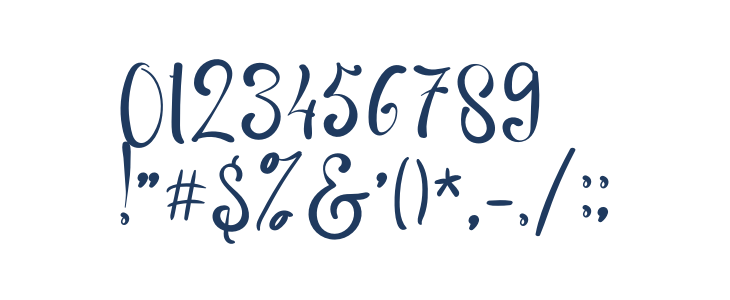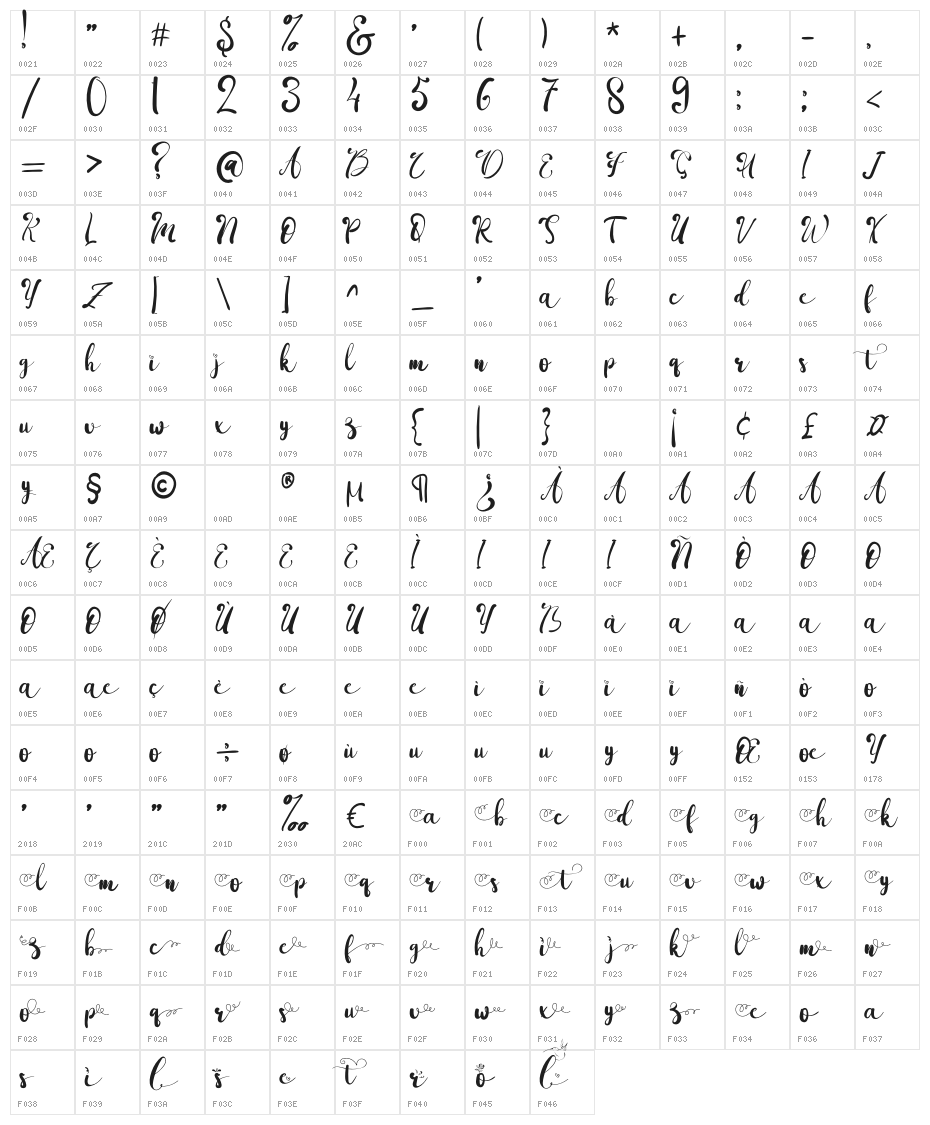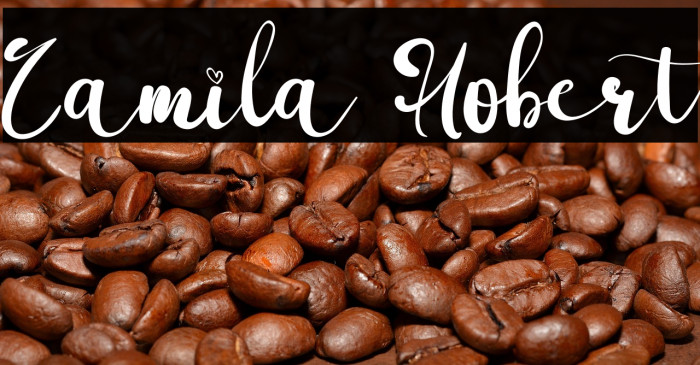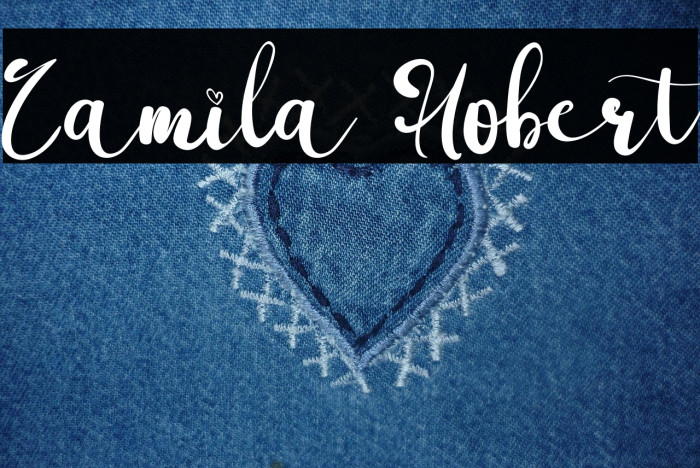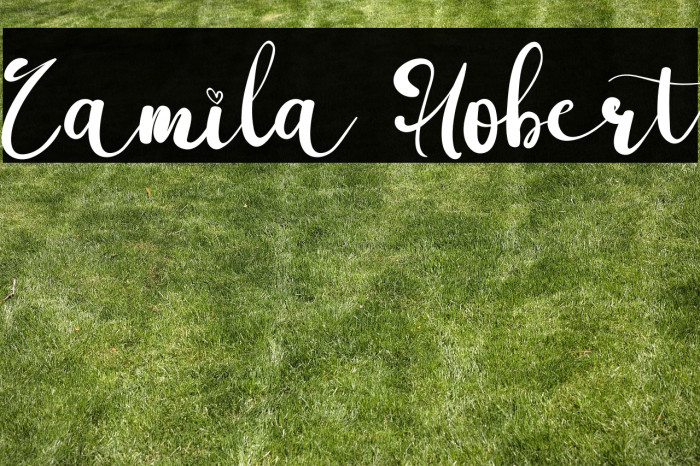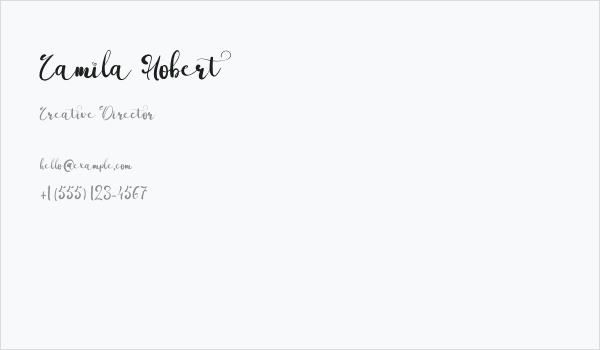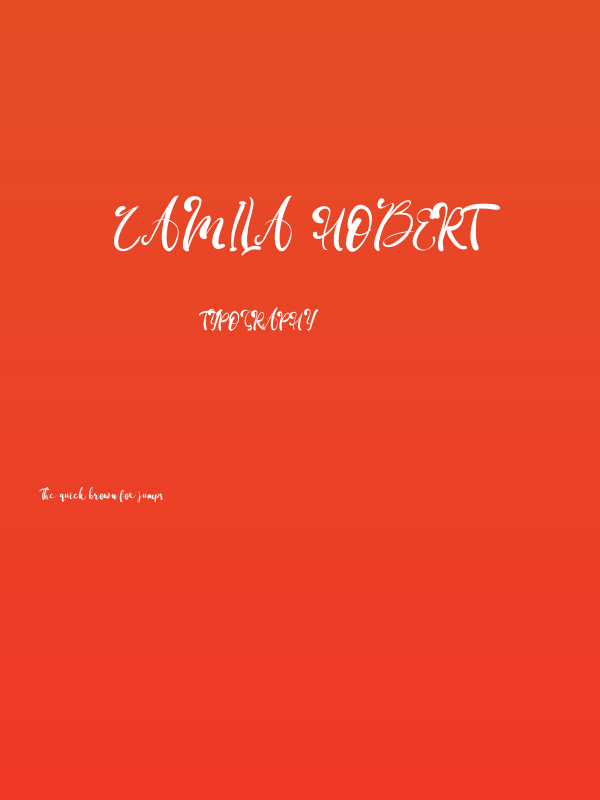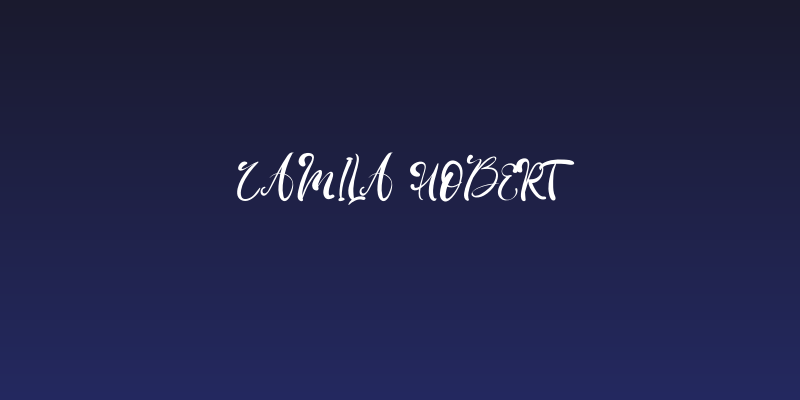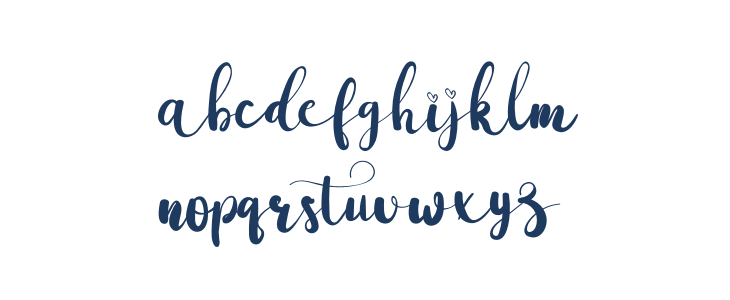
Camila Hobert Font
Camila Hobert Description
This font features a flowing, cursive style with elegant, sweeping lines and a hand-drawn appearance. The uppercase letters are bold and dynamic, with a playful yet sophisticated flair. Lowercase letters maintain a consistent flow, with some characters featuring charming embellishments like small hearts. The numerals are bold and maintain the same artistic style, ensuring readability while adding a touch of whimsy. Special characters are creatively integrated, matching the overall aesthetic. This font is ideal for projects that require a personal, artistic touch, such as invitations, greeting cards, and branding materials.